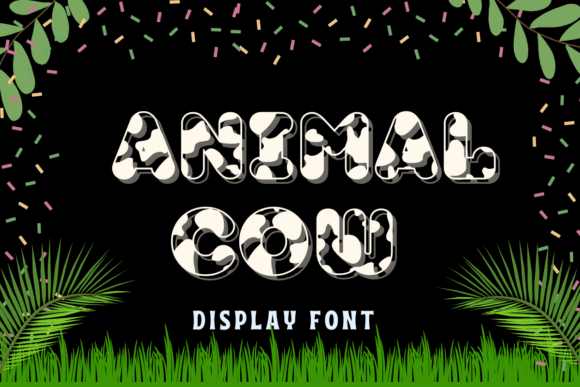
The Udderly Perfect Font: A Deep Dive into Animal Cow Font
I’ll never forget the time I was working on a farm-themed party invitation for my niece’s birthday. I had the design all laid out, but something was missing – the perfect font to tie everything together. That’s when I stumbled upon the Animal Cow Font, and let me tell you, it was love at first sight! 💕
This playful and bold display font features fun cow-print patterns inside each letter, making it perfect for children’s projects, farm-themed designs, party invitations, posters, and branding. In this article, we’ll explore what makes Animal Cow Font so special, its features, and how to make the most of it in your designs.
• ✨ Unique and eye-catching cow-print patterns inside each letter
• ✅ Perfect for children’s projects, farm-themed designs, and party invitations
• 💃 Adds a lively and cheerful touch to any design
• 📸 High-quality font with clear and crisp patterns
While Animal Cow Font is an amazing addition to any design, there are a few things to keep in mind:
• ⚠️ The font may not be suitable for body text or small font sizes, as the patterns can become too dense and difficult to read.
• 🤔 Some letters, like the lowercase “q” and “x”, can be a bit tricky to read due to the cow-print patterns.
The Designer Inspiration Behind Animal Cow Font
Animal Cow Font was designed with the intention of creating a fun and playful font that would bring a smile to people’s faces. The designer, inspired by the joy of farm animals and the world of children’s design, set out to create a font that would be perfect for a variety of creative projects.
The designer’s passion for typography and illustration shines through in every detail of the font, from the intricate cow-print patterns to the bold and cheerful letterforms.
Q: What type of projects is Animal Cow Font best suited for?
A: Animal Cow Font is perfect for children’s projects, farm-themed designs, party invitations, posters, and branding.
Q: Is Animal Cow Font available in different font weights?
A: Currently, Animal Cow Font is available in a single font weight, but the designer may release additional weights in the future.